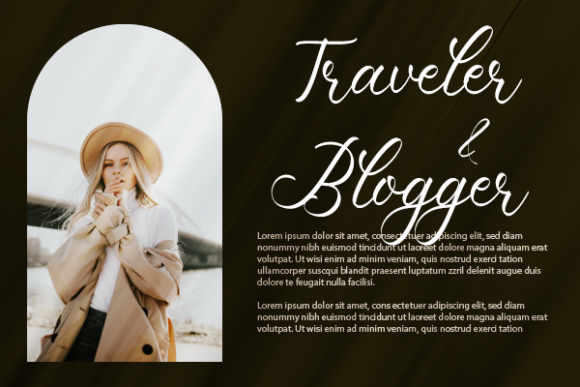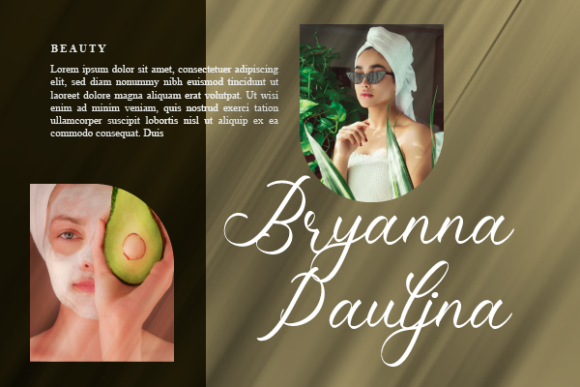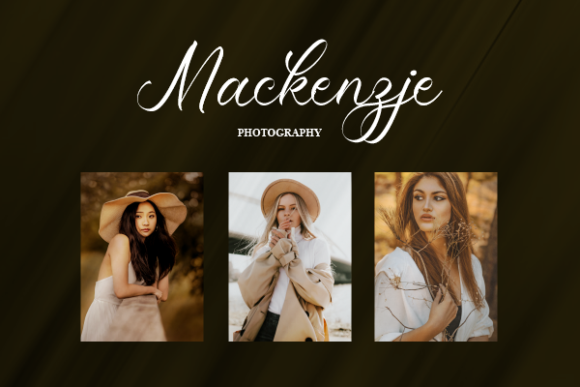
Introduction to Sarah Amanda Font Font
Fonts play a crucial role in design, and the Sarah Amanda Font font is a typeface that brings both character and versatility to any project. Whether you’re working on a branding project, a website, or a print design, the Sarah Amanda Font font offers a unique style that can elevate your work.
Sarah Amanda is a stylish and dainty script font.
It is suitable for any projects such as: logos, branding projects, label, photography, watermark, special events, and all your other lovely projects that need a beautiful script taste .
The Sarah Amanda Font font is more than just a typeface – it’s a design tool that helps you communicate your message with style and clarity. Its unique character set and versatile design make it suitable for a wide range of applications, from elegant invitations to bold headlines.
With its carefully crafted letterforms and balanced proportions, the Sarah Amanda Font font ensures readability and visual appeal across all mediums.
The Sarah Amanda Font font stands out with its unique design, exceptional readability, and versatility across various design applications.